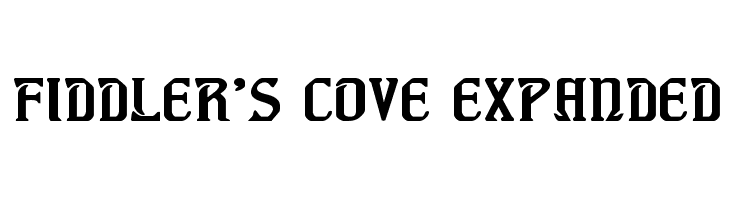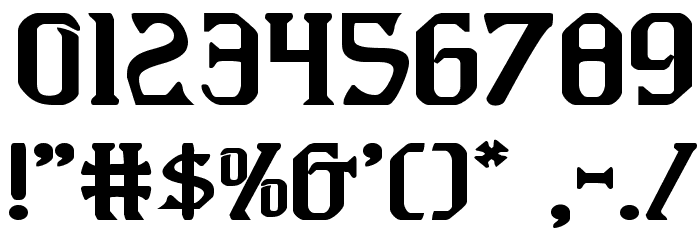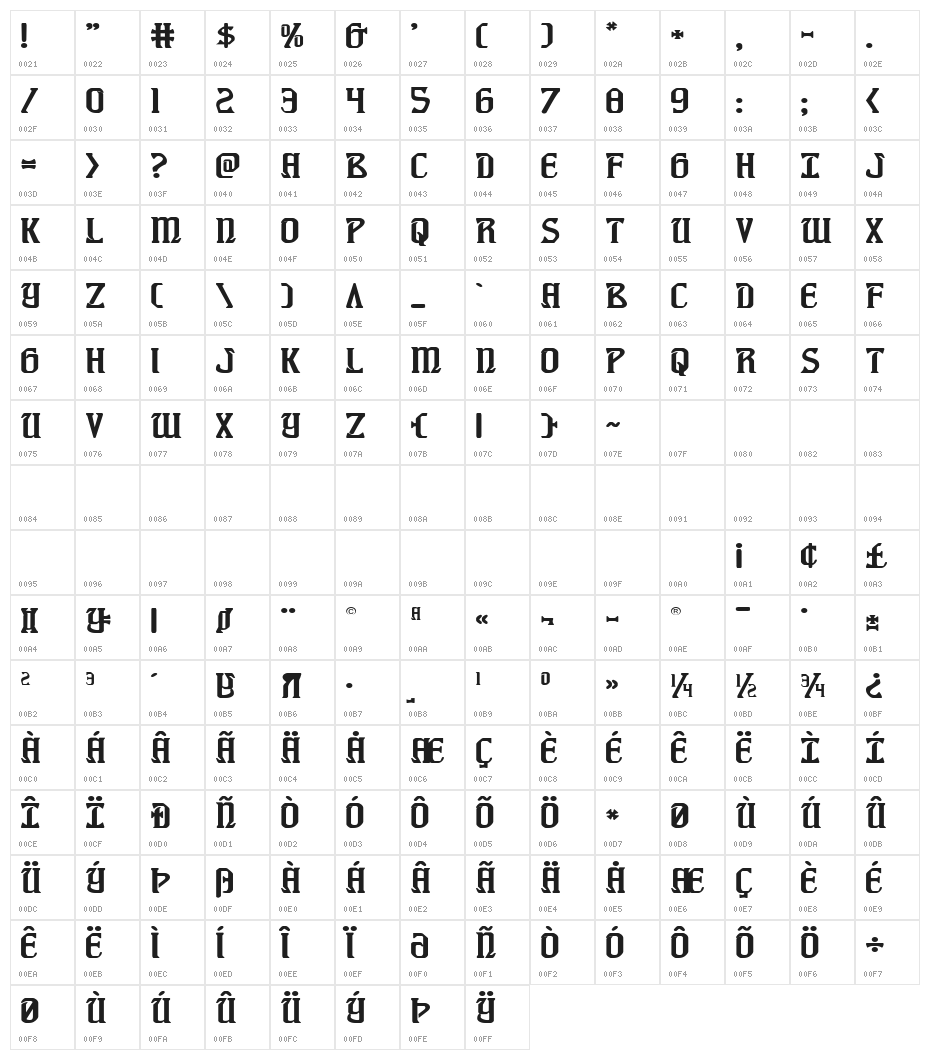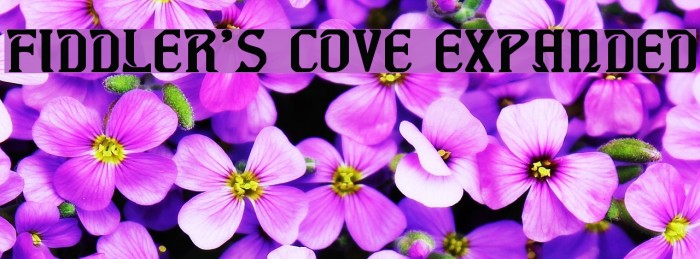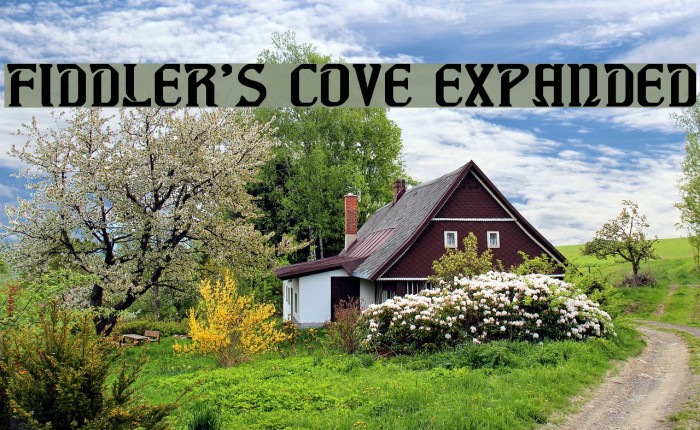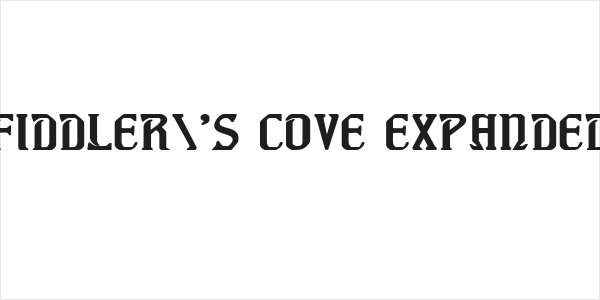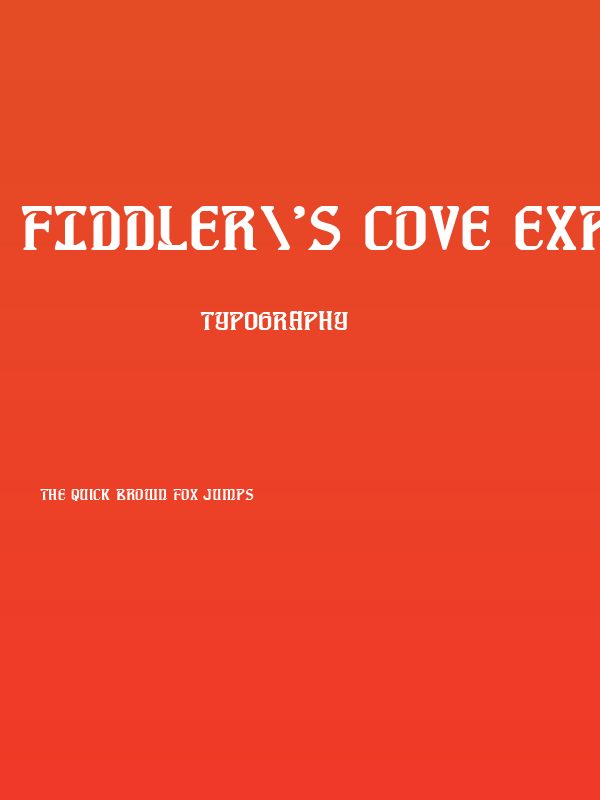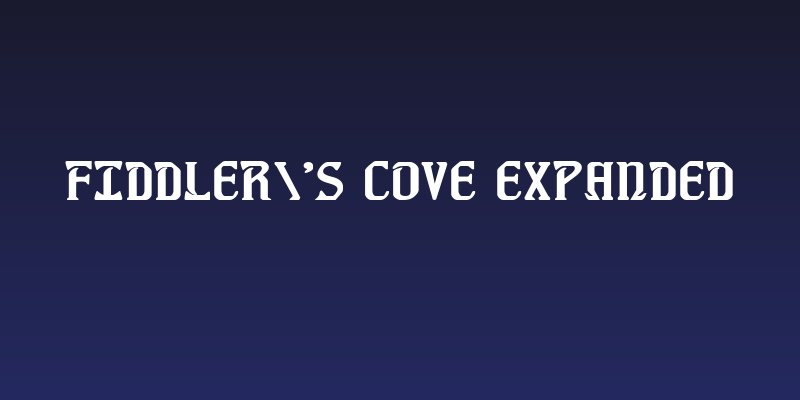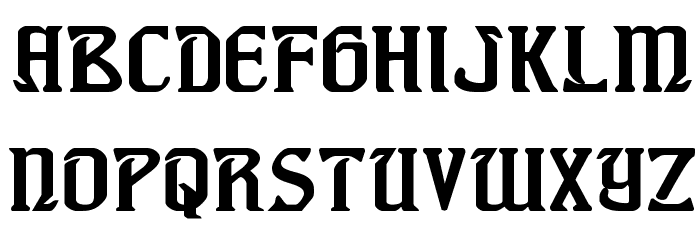
Fiddler's Cove Expanded Font
Fiddler's Cove Expanded Description
This font features a bold and striking design with a distinct blackletter style. The characters are characterized by sharp, angular lines and a strong presence, reminiscent of traditional Gothic script. The uppercase and lowercase letters maintain a consistent style, with the uppercase letters being particularly prominent. The numerals and special characters follow the same design principles, ensuring a cohesive look across all glyphs. This font is ideal for creating a dramatic and impactful visual impression, suitable for projects that require a historical or medieval aesthetic.
| Use Case | Headlines, Logos, Decorative text |
| Proposed Projects | Ideal for historical-themed designs, medieval event posters, book covers, or branding that requires a dramatic and traditional look. |